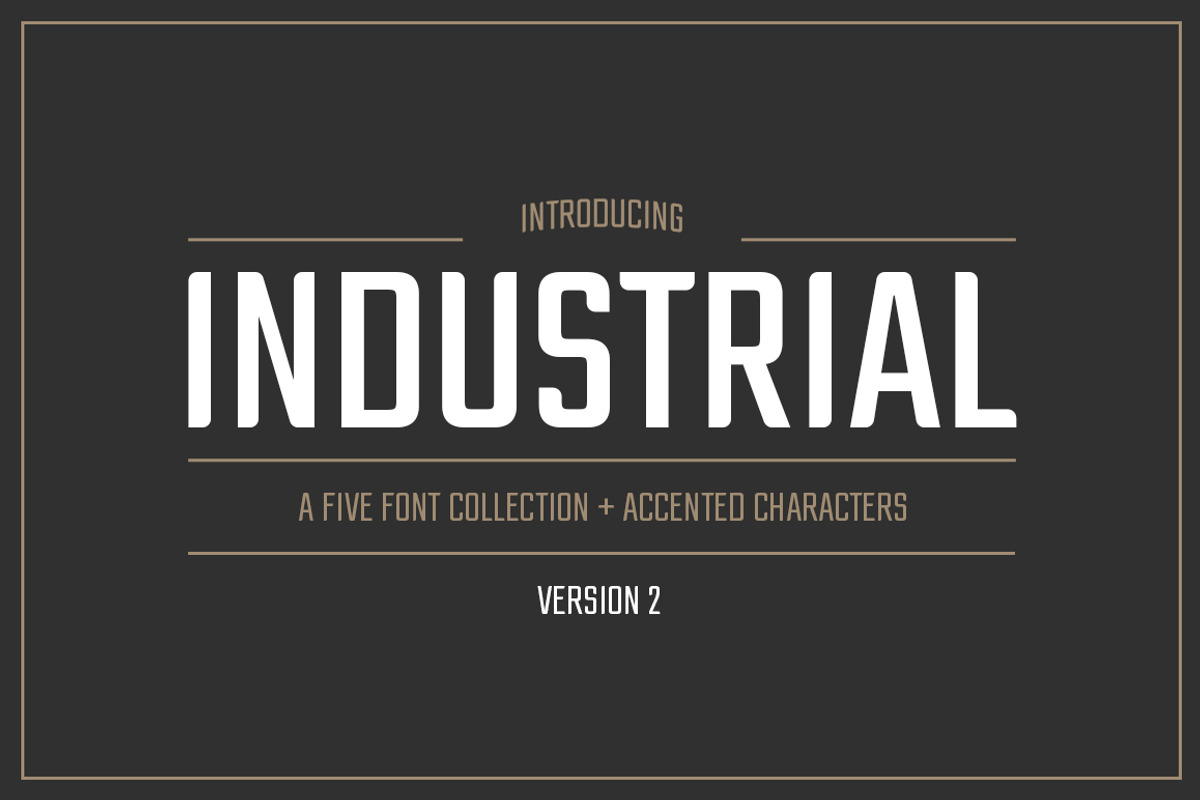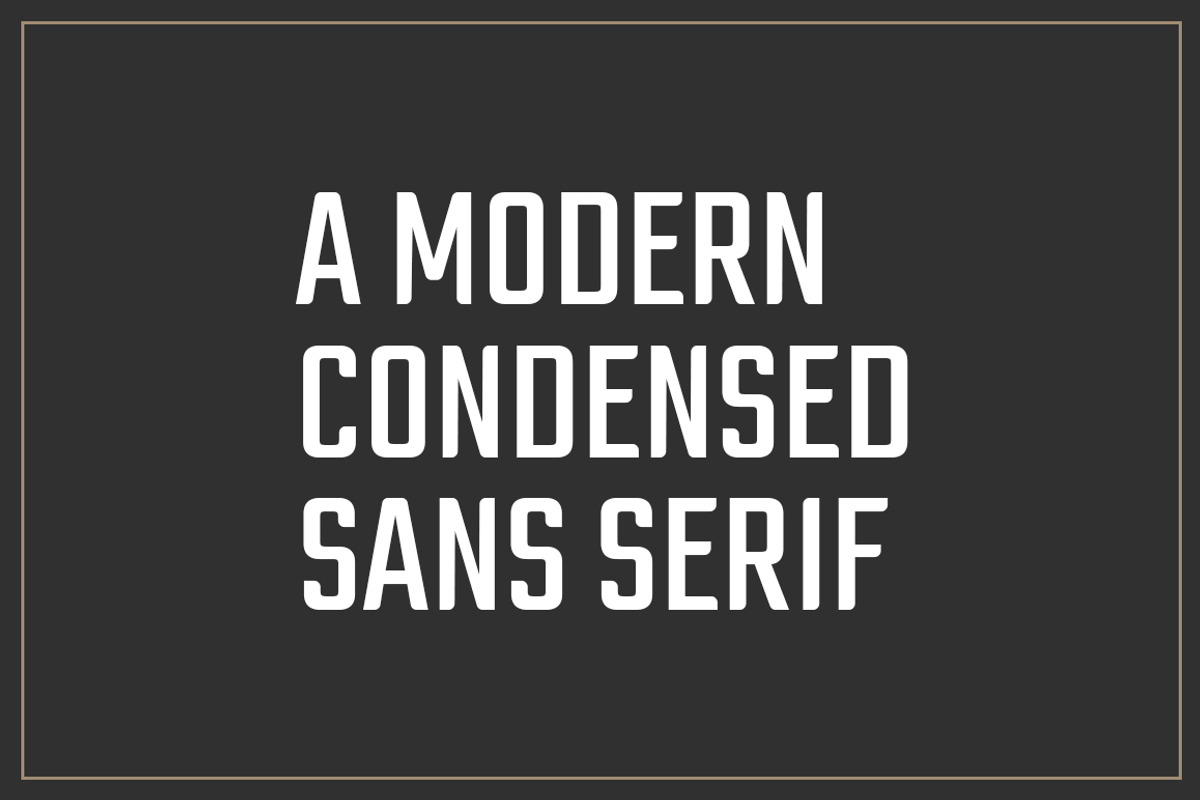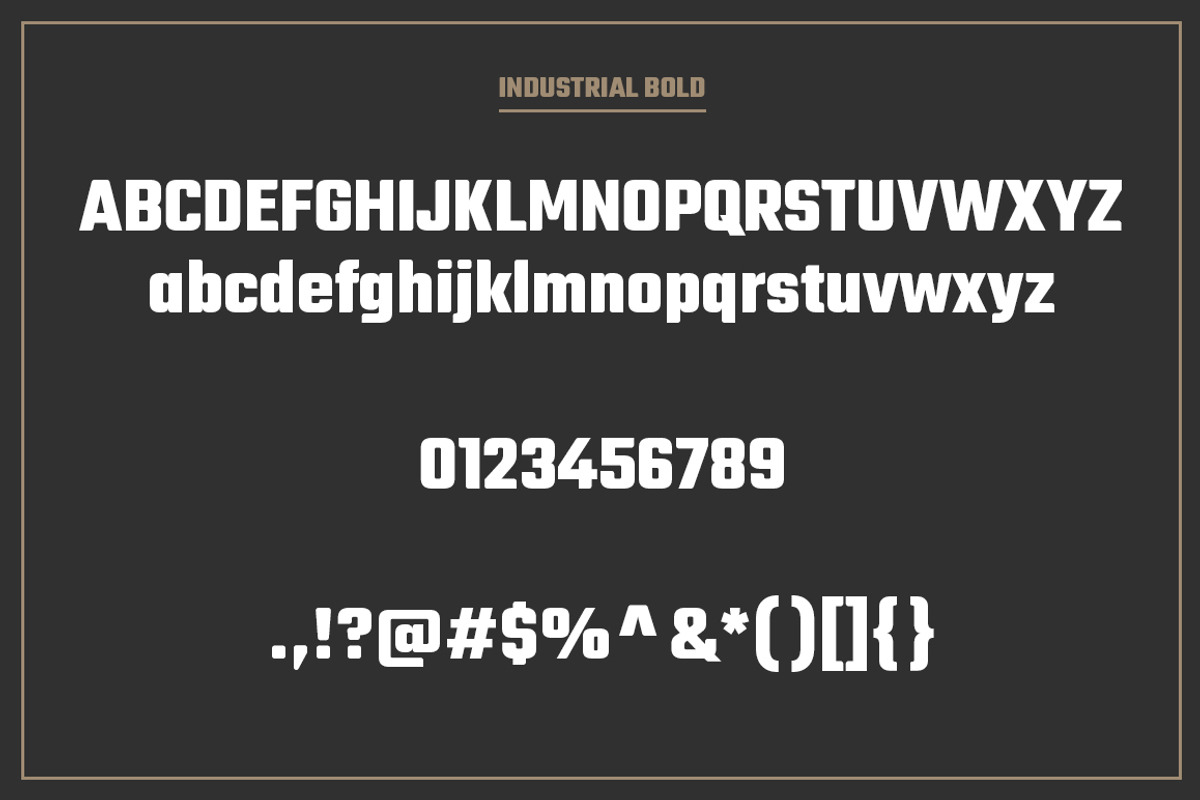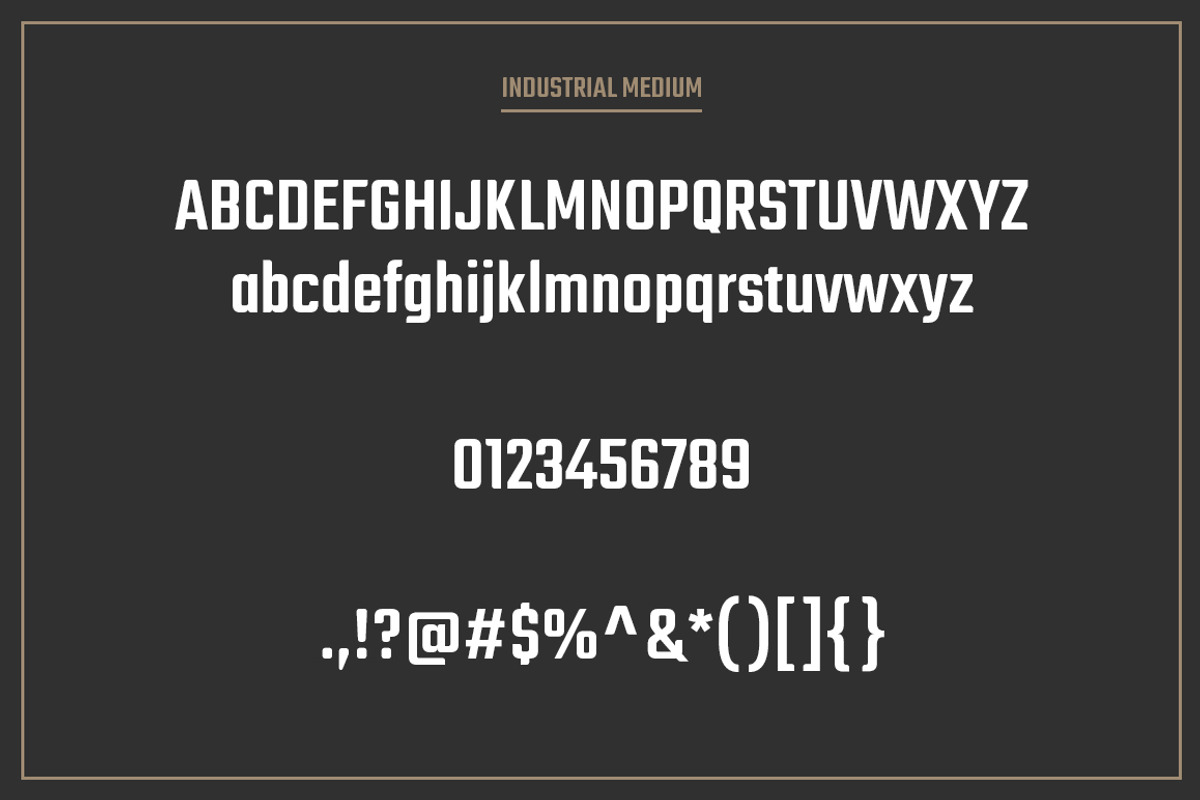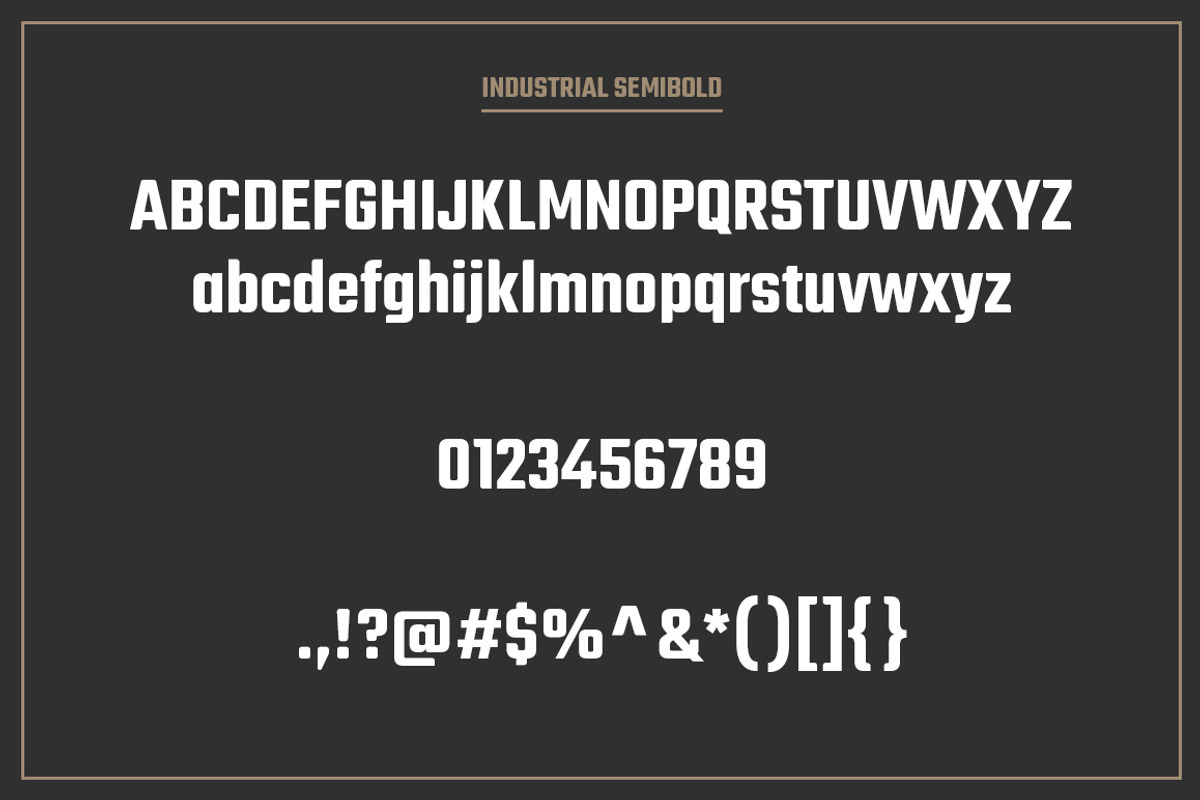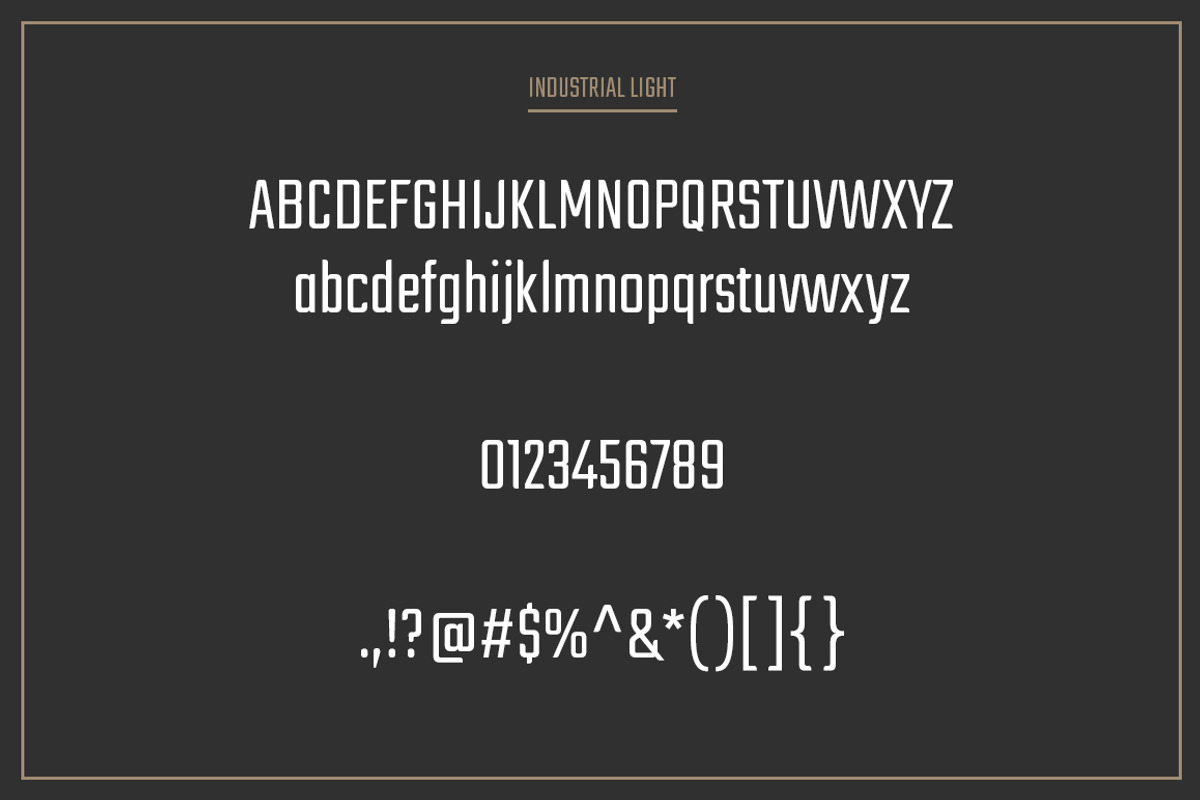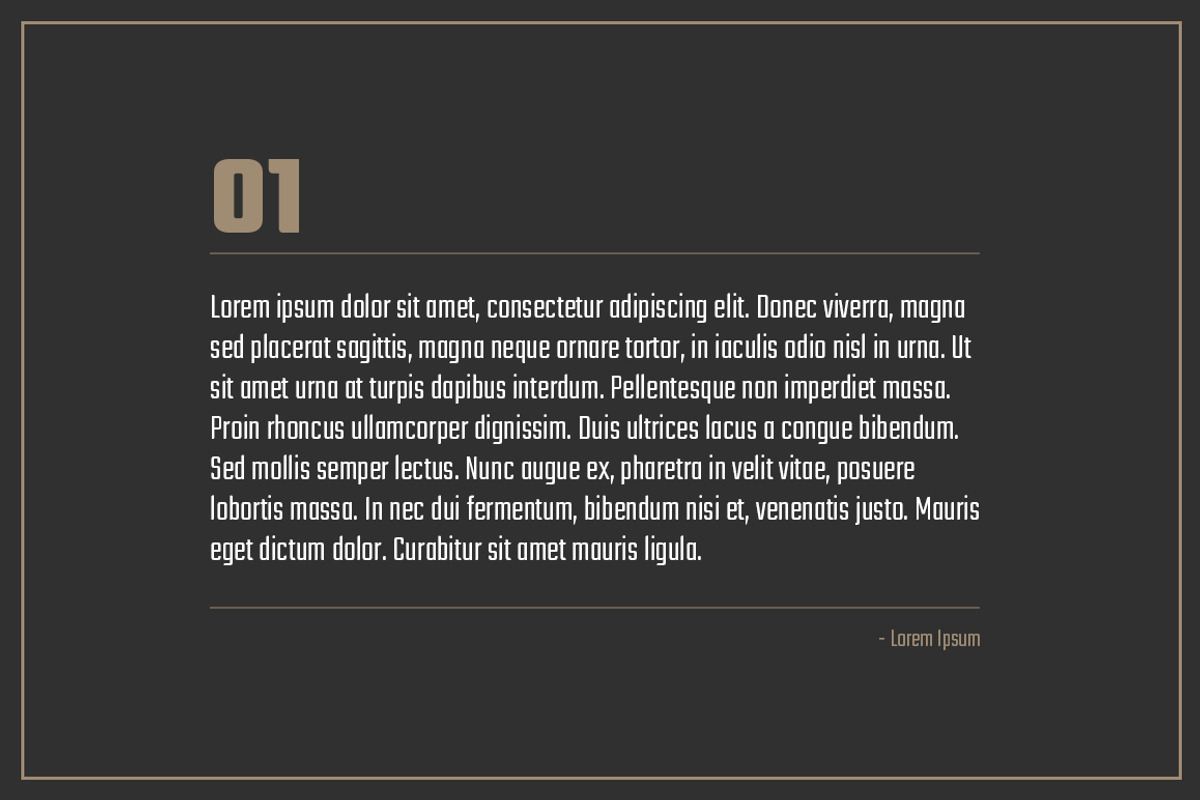
Industrial Font Collection
We tweaked the font to fix some consistency issues and added accented characters
Industrial is a modern, condensed sans serif font with a vintage feel. With its strong vertical appearance and soft rounded corners, Industrial is very versatile. Perfect for posters, logos, headlines, blogs and more.